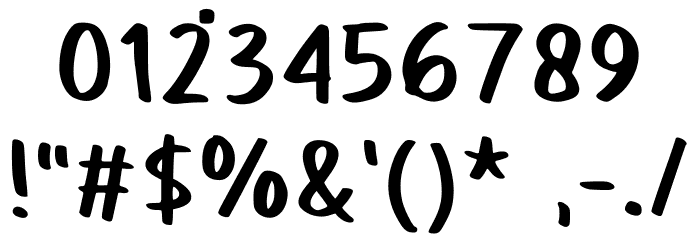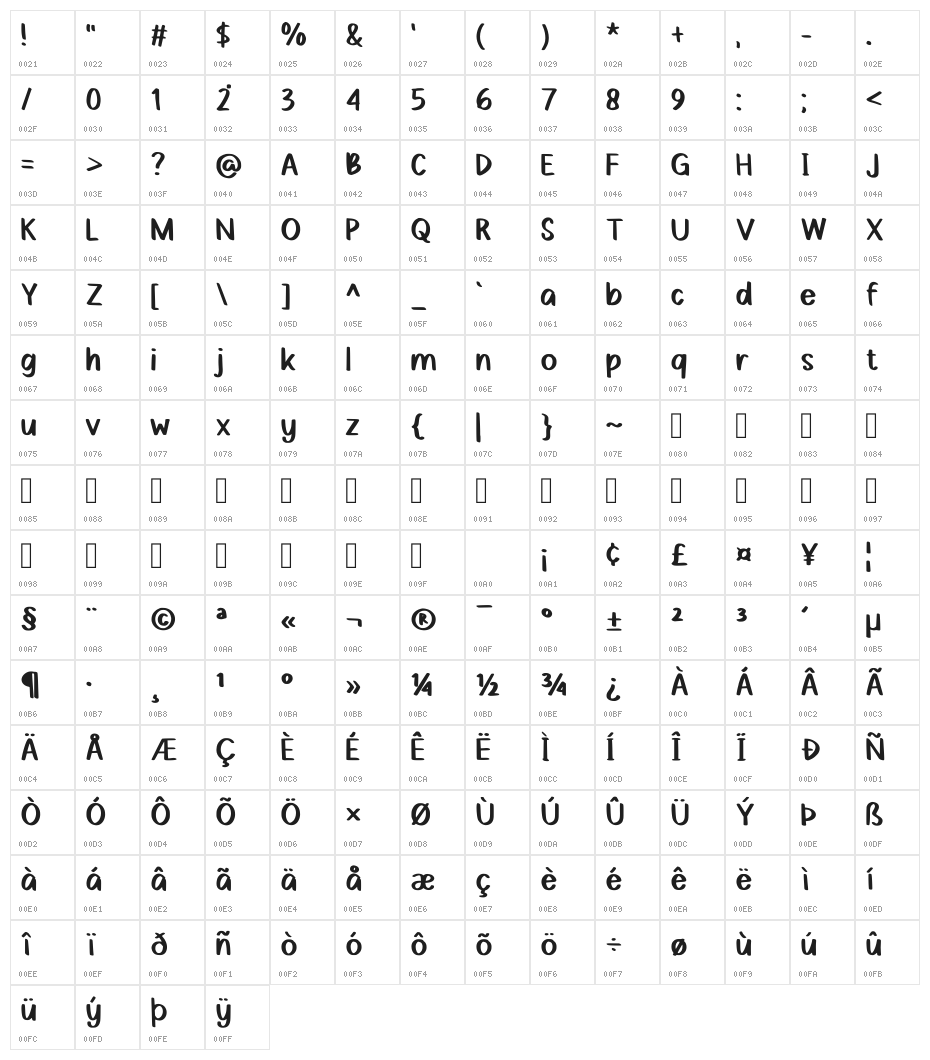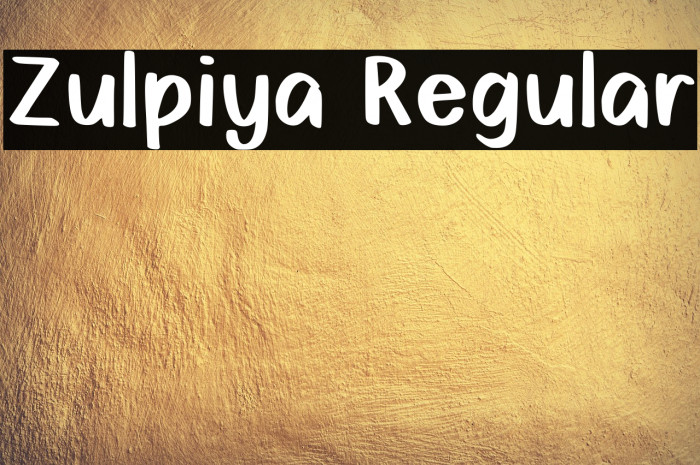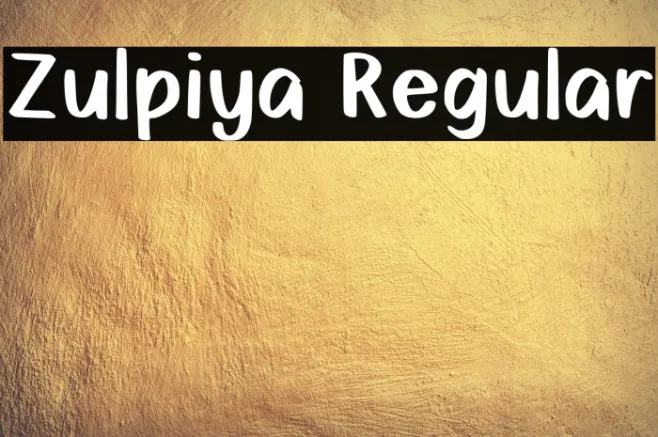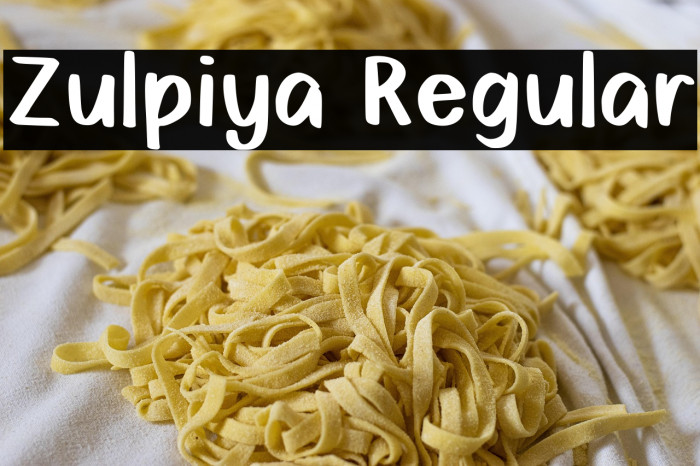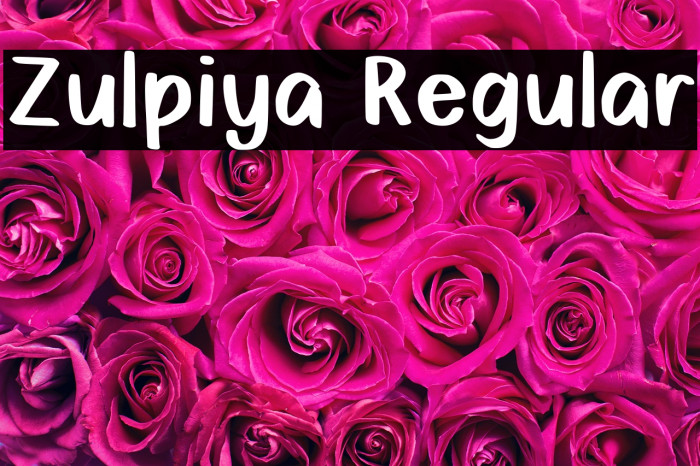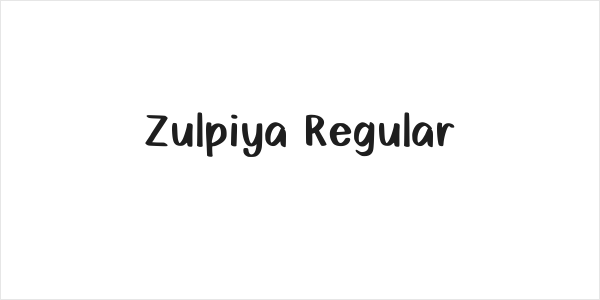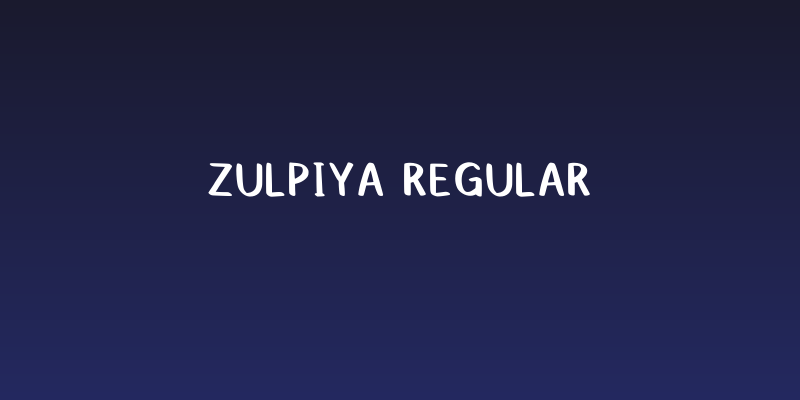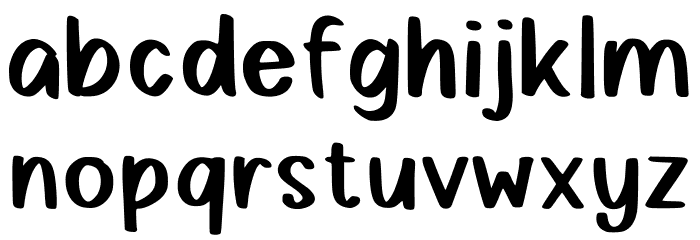
Zulpiya Regular Font
Zulpiya Regular Description
This font features a playful and informal style with a handwritten appearance. The letters have a rounded, slightly irregular form that gives it a friendly and approachable feel. The strokes are consistent in thickness, providing a uniform look across all characters. The uppercase and lowercase letters maintain a cohesive style, with the lowercase letters having a slightly more whimsical touch. The numerals and special characters follow the same design principles, ensuring a harmonious overall appearance. This font is well-suited for projects that require a casual and inviting tone.